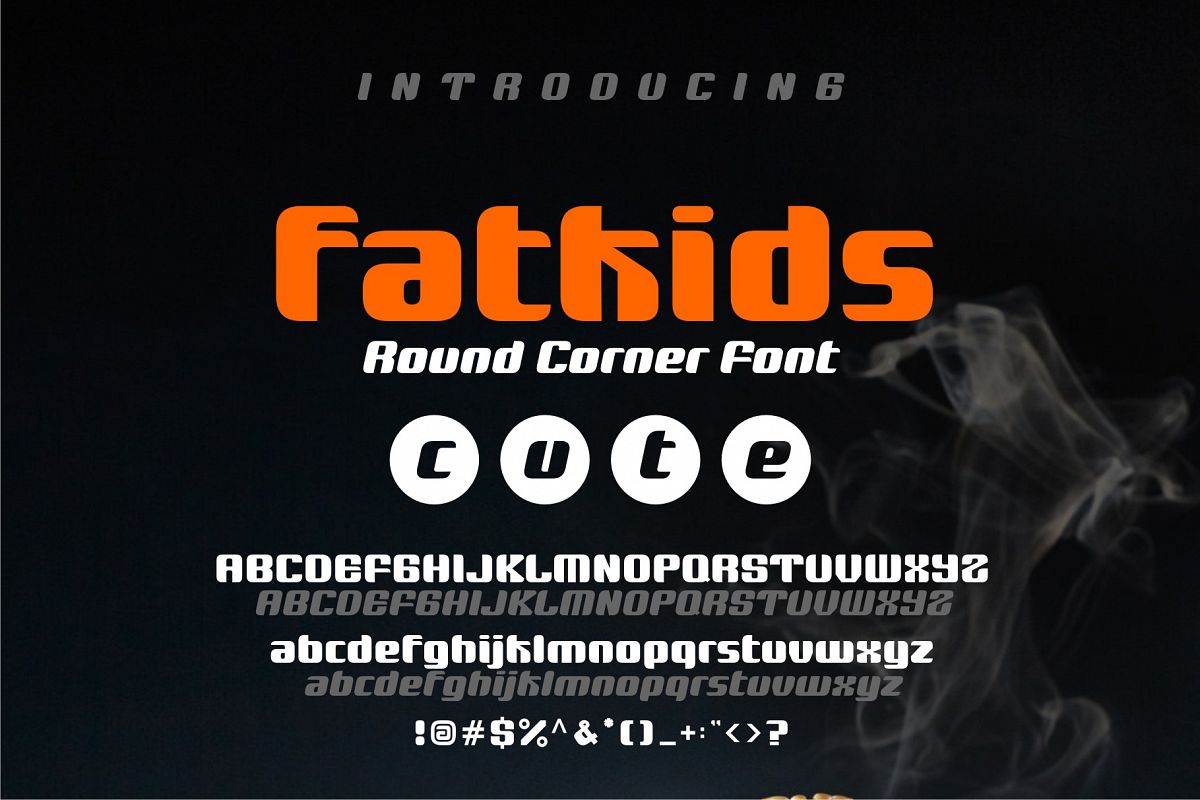
fatkids
fatkids regular
fatkids italic
Looking kids typeface / smooth / round corner / game ? here we have a cute and clean font for your project. Grab it fast